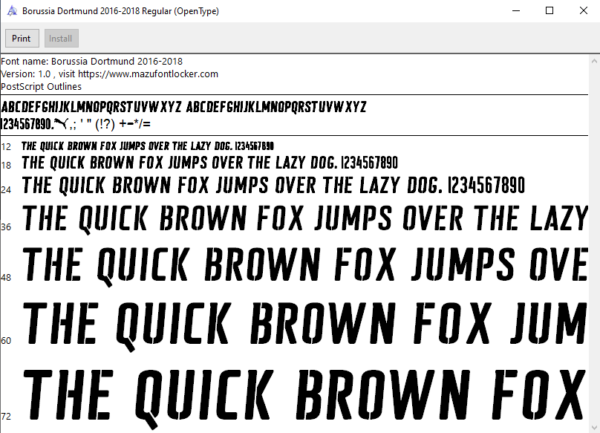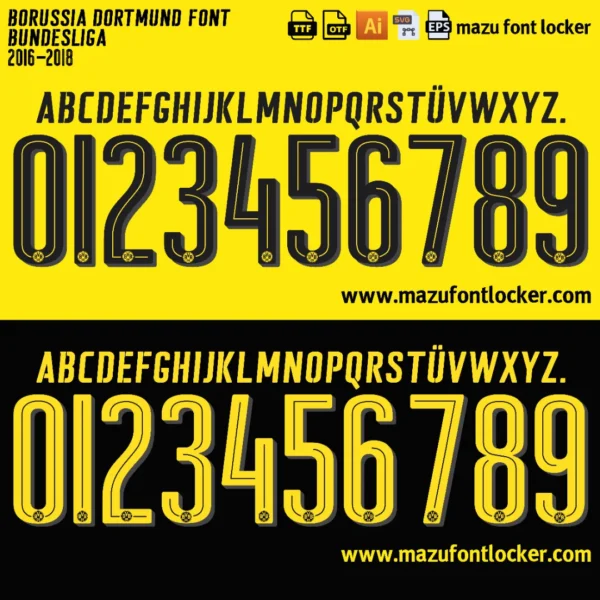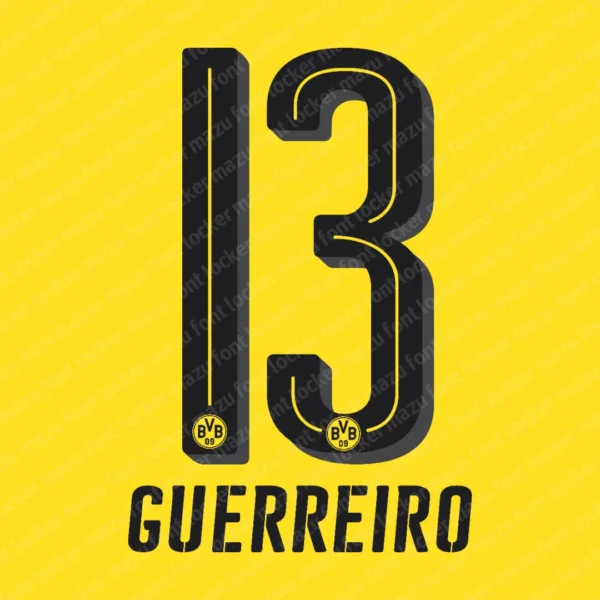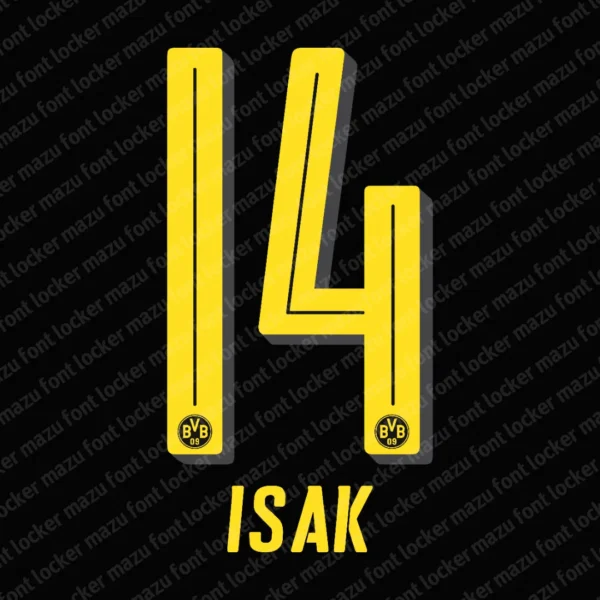
Borussia Dortmund 2016-2018 Font Vector – Legendary Yellow Black Masterpiece
This premium font captures the commanding, iconic, majestic, and battle-ready lettering that embodies the unstoppable Dortmund spirit — delivering raw German fire, explosive winning energy, relentless never-say-die mentality, tactical supremacy, and legendary revolutionary warrior grit.
Borussia Dortmund 2016-2018 Font Vector – Authentic Schwarzgelben Typeface
The Borussia Dortmund 2016-2018 Font Vector is a premium typeface that accurately recreates the official match lettering worn by Borussia Dortmund during the 2016-2018 seasons. This high-quality vector font kit captures the bold, dynamic, and energetic typography that represents the club’s rich heritage, passionate intensity, and attacking spirit of Die Schwarzgelben.
Designed for professional designers and devoted Borussia Dortmund supporters, the Borussia Dortmund 2016-2018 Font Vector delivers perfect authenticity for creating realistic jersey mockups, fan merchandise, matchday posters, social media graphics, and German football content. It pairs beautifully with the iconic yellow and black Borussia Dortmund kit, one of the most recognizable club identities in the Bundesliga and European football.
This font stands out because of its sharp vector precision and strong club identity. Every letter and number is crafted to match the exact style used on the players’ shirts during Borussia Dortmund’s memorable 2016-2018 campaigns. Whether you are creating realistic kit templates or exciting BVB-themed content, the Borussia Dortmund 2016-2018 Font Vector gives your designs that authentic Signal Iduna Park atmosphere.
The letterforms in the Borussia Dortmund 2016-2018 Font Vector are bold, powerful, and highly readable. The strokes feature strong geometric construction combined with athletic styling, creating a dynamic appearance that stands out on jerseys while preserving Borussia Dortmund’s legendary football heritage and passionate Yellow Wall energy.
The numerals feature robust curves and clean, sharp edges, delivering a confident and premium appearance. This vector design ensures flawless scalability and excellent legibility across both print and digital applications.
• Full uppercase A–Z and numbers 0–9 in authentic Borussia Dortmund 2016-2018 style
• Multilingual Latin character support including German umlauts and special characters
• Create highly realistic Borussia Dortmund 2016-2018 jersey mockups with accurate lettering
• Produce custom BVB merchandise with the official 2016-2018 aesthetic
• Includes the exact crest glyph placement used beneath player numbers
Borussia Dortmund 2016-2018 Seasons